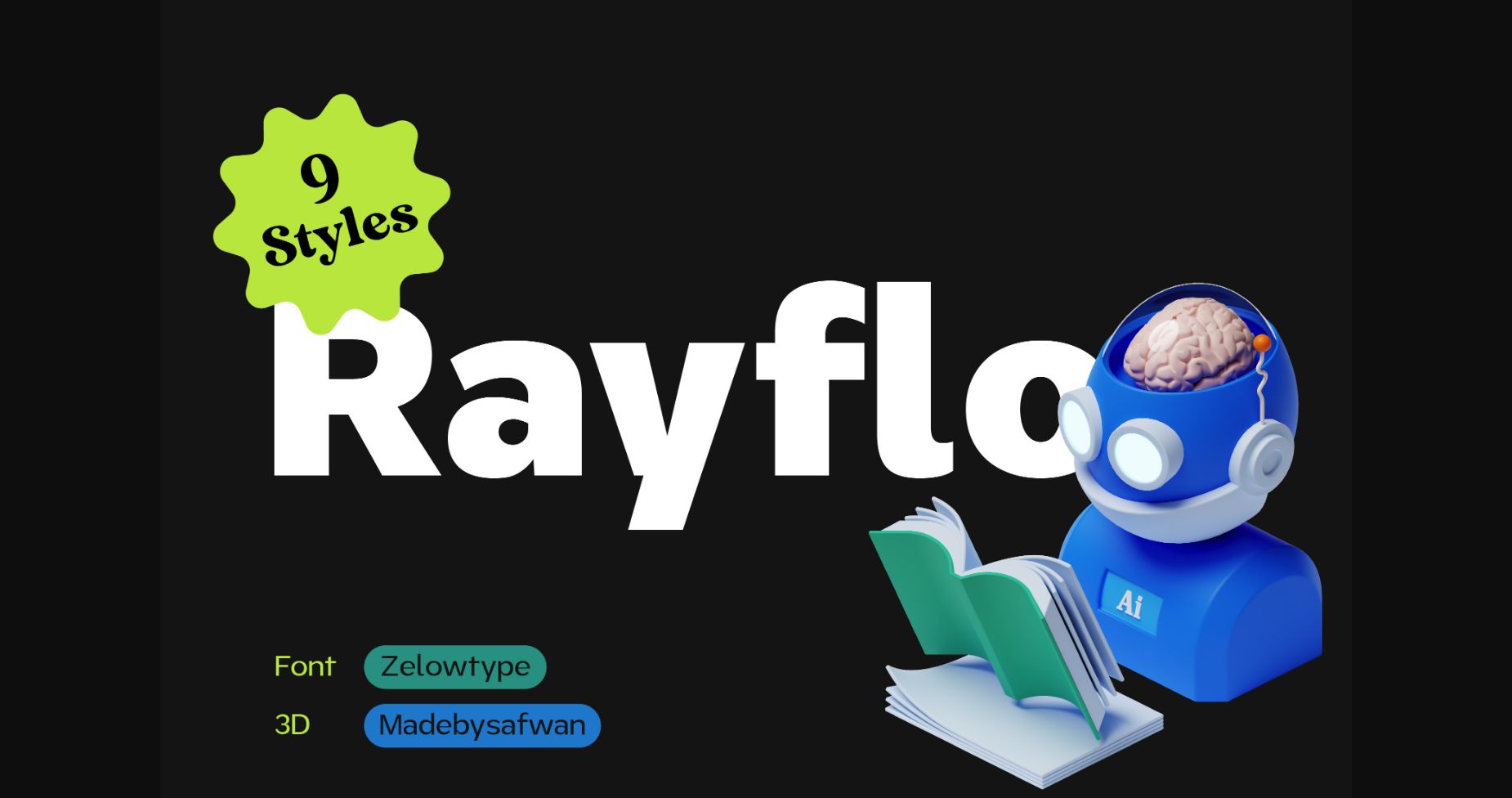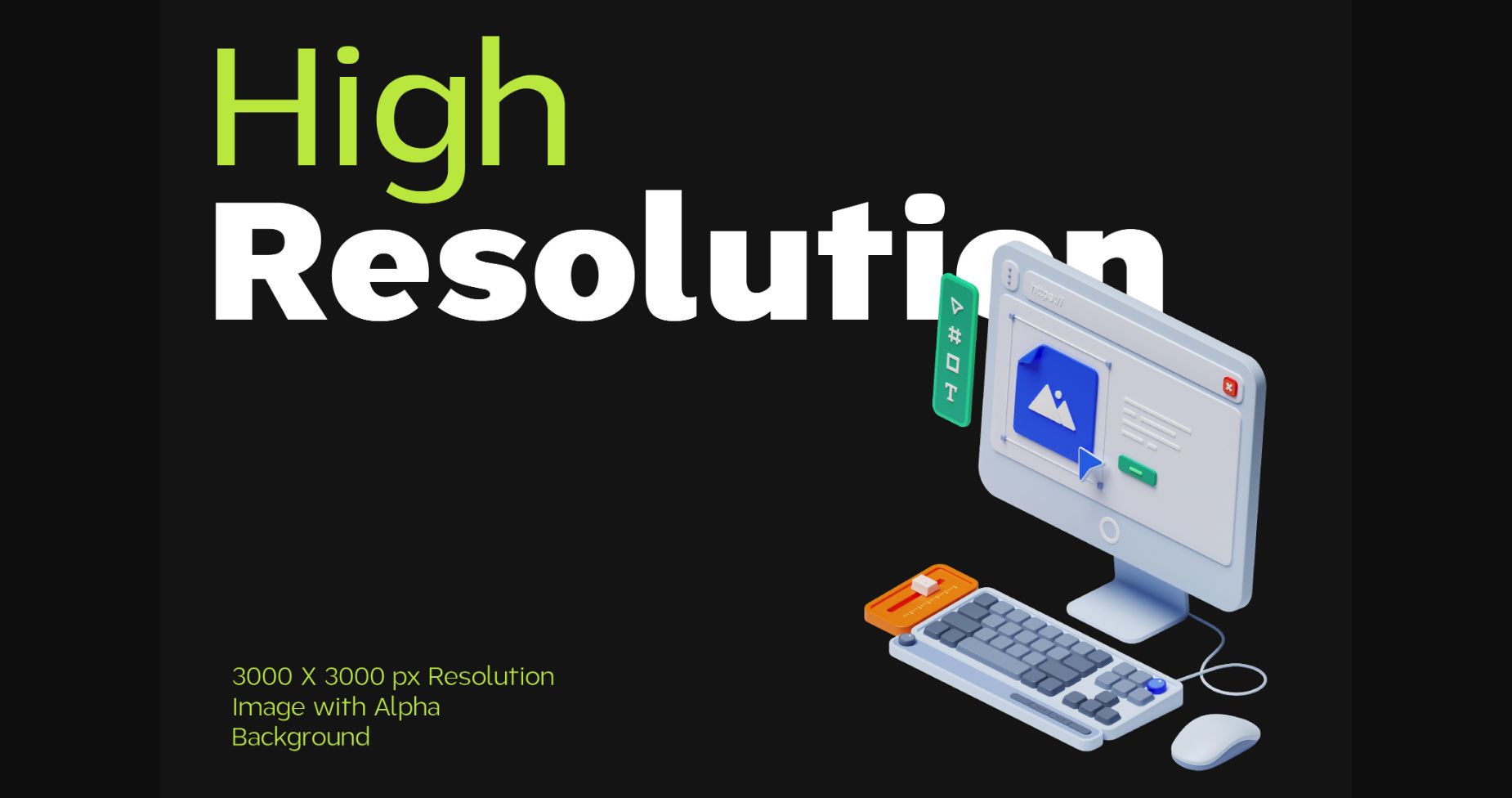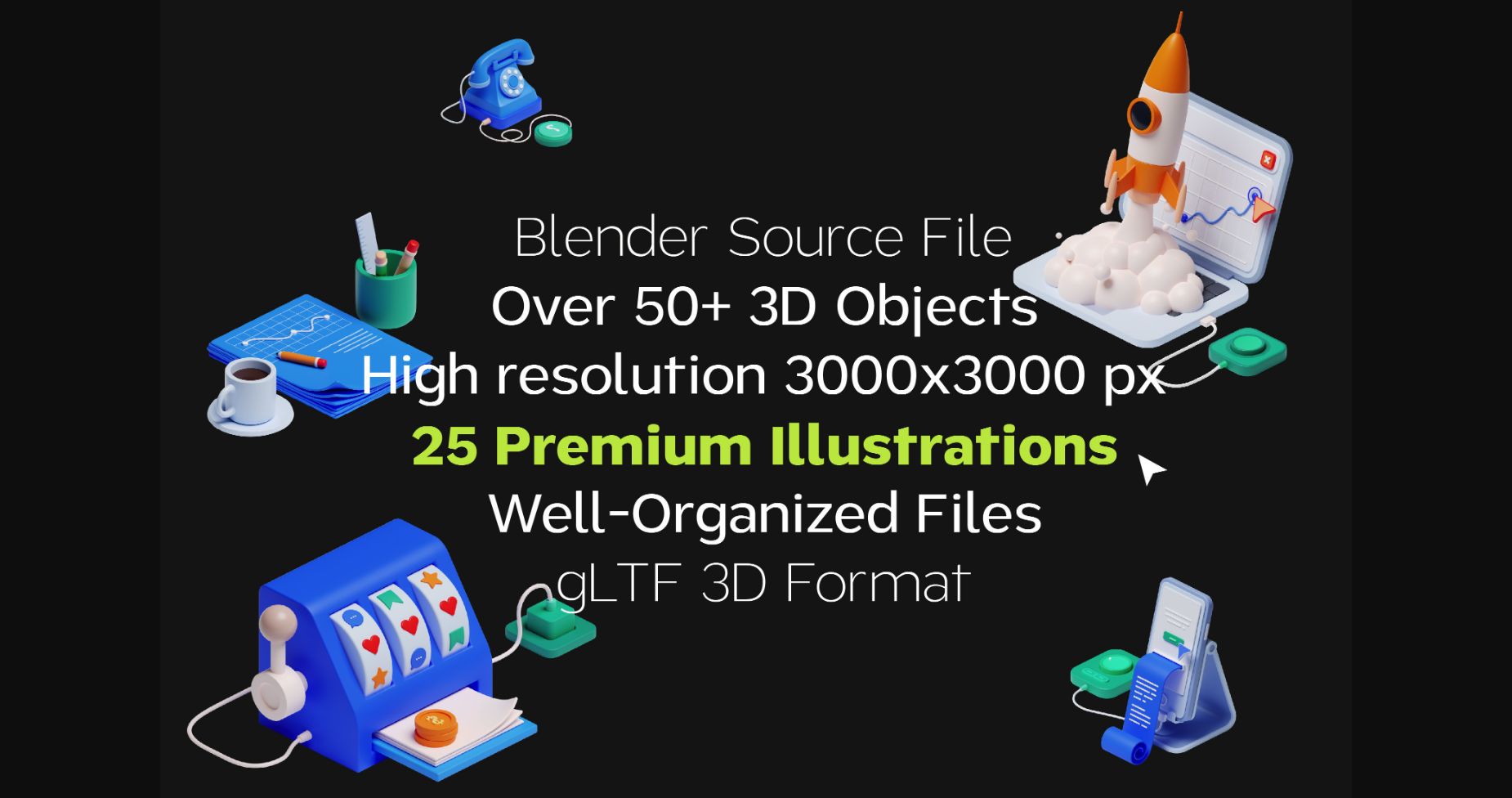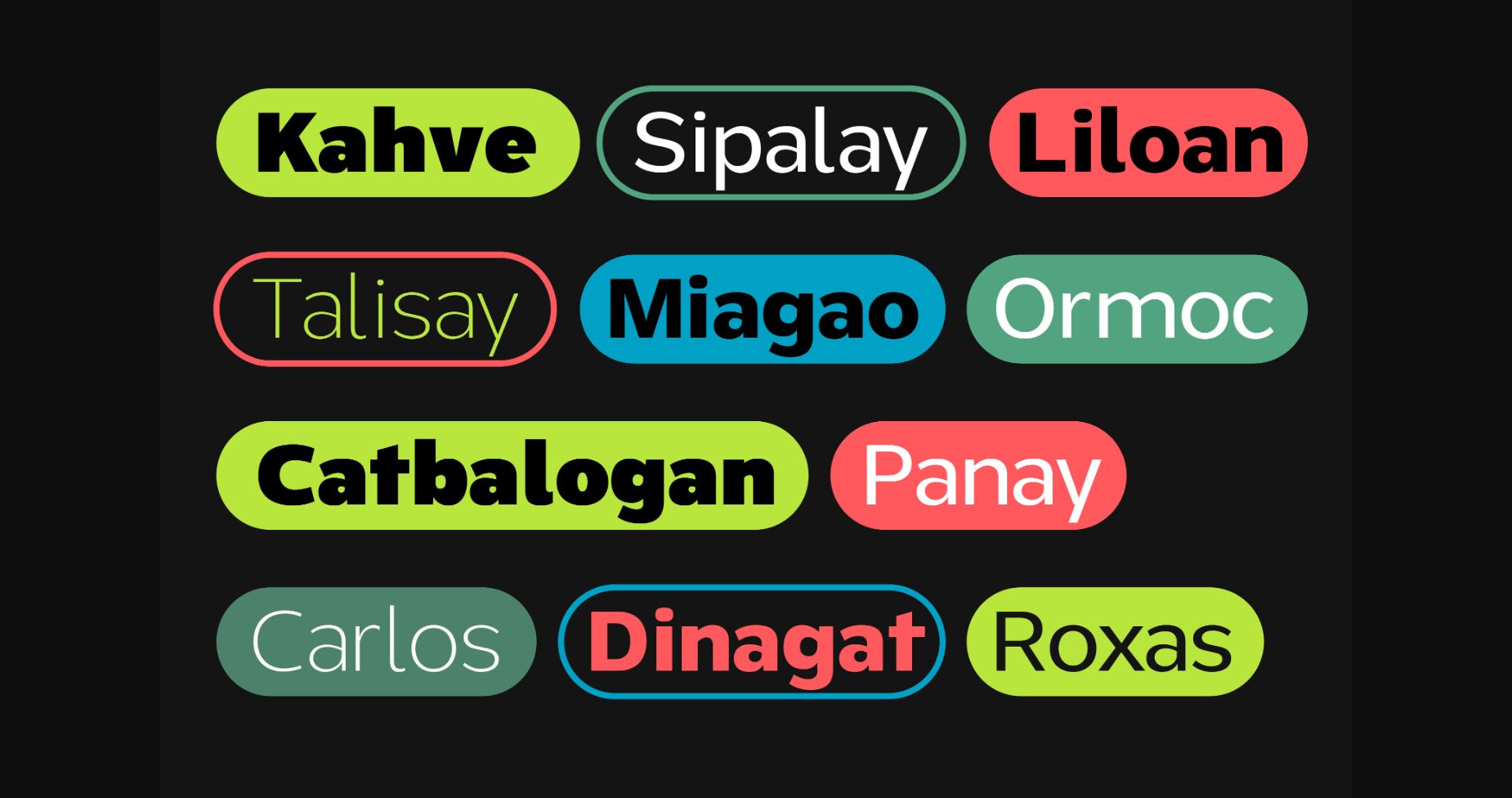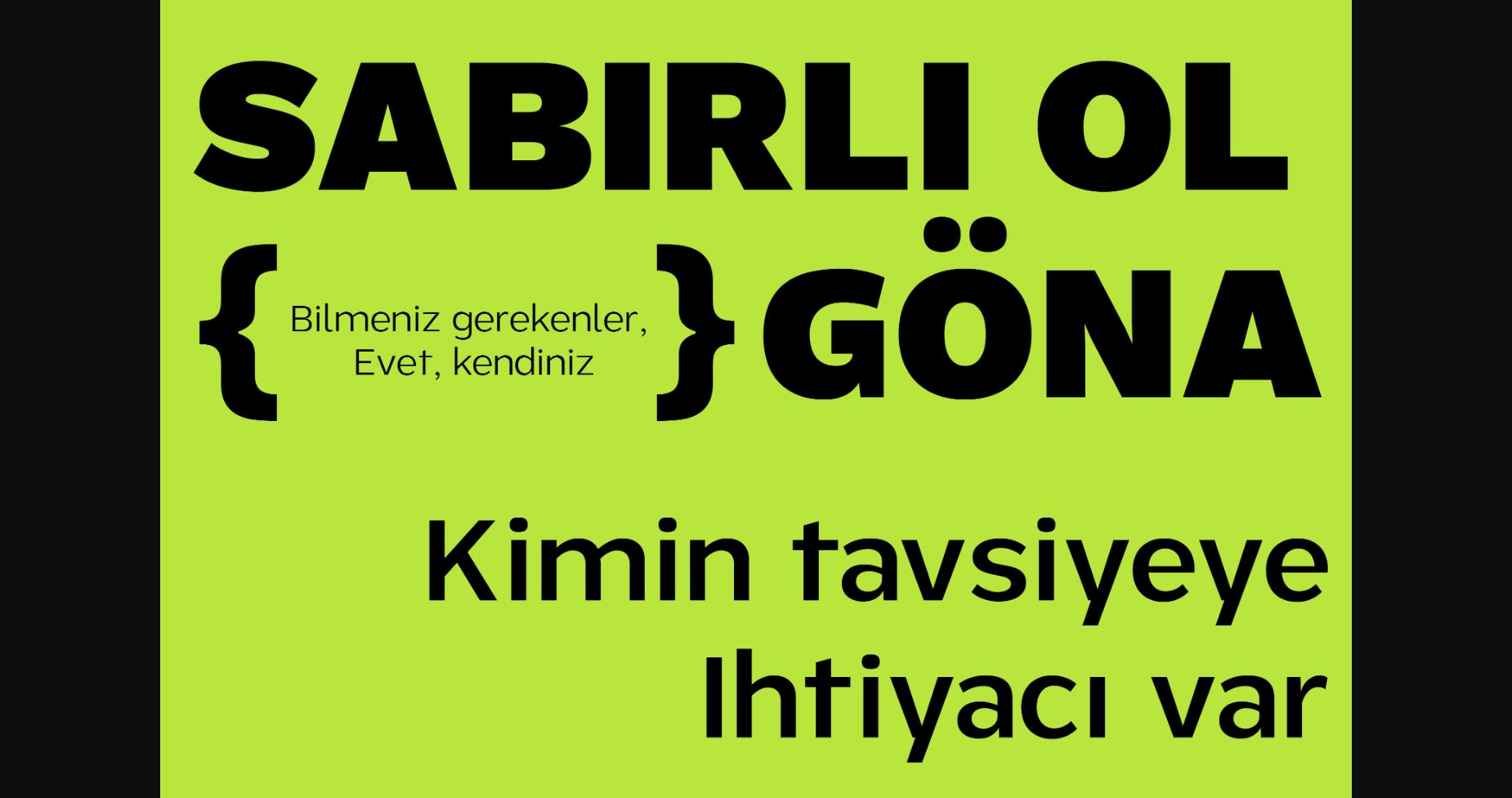
About Rayflo Font
Rayflo is a sans serif font family with full simplicity, no clutter in it, just fonts with a gentle flow. This font has nine weights from light to black. Even with its simple style, Rayflo is perfect if you need it for your design, it will always look fashionable and stylish whatever the project is.